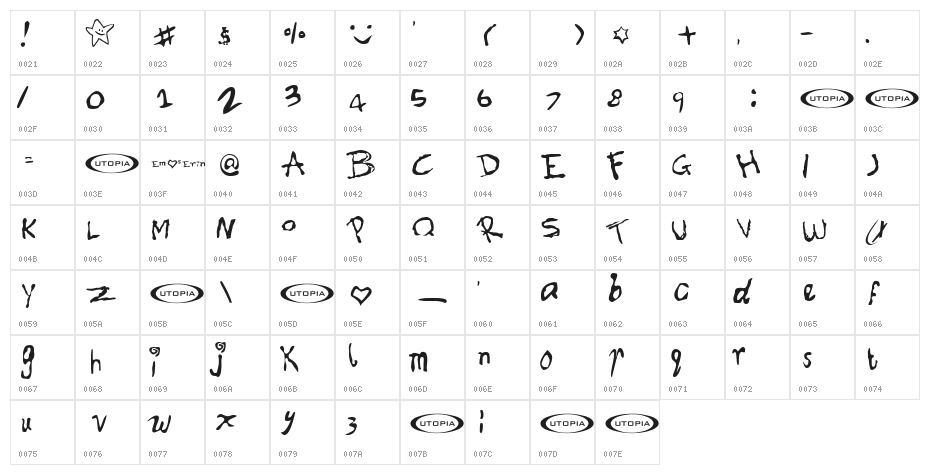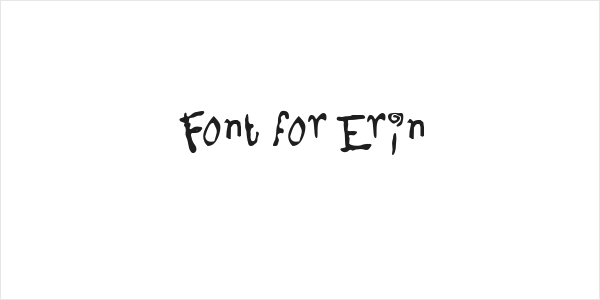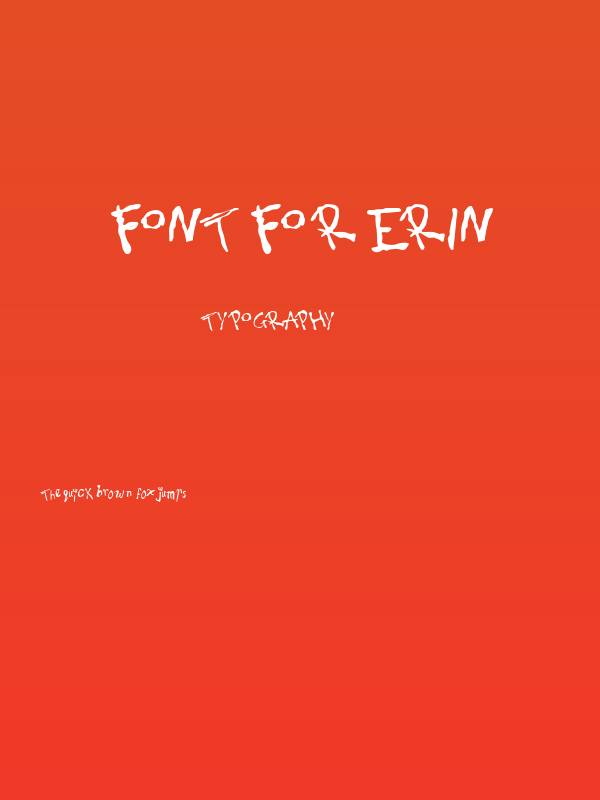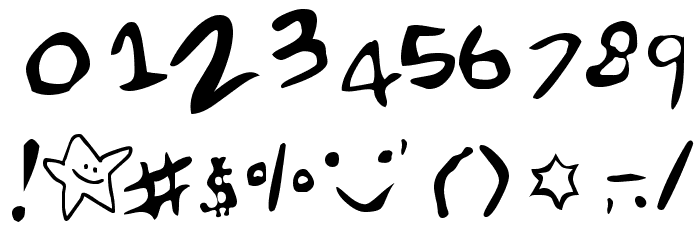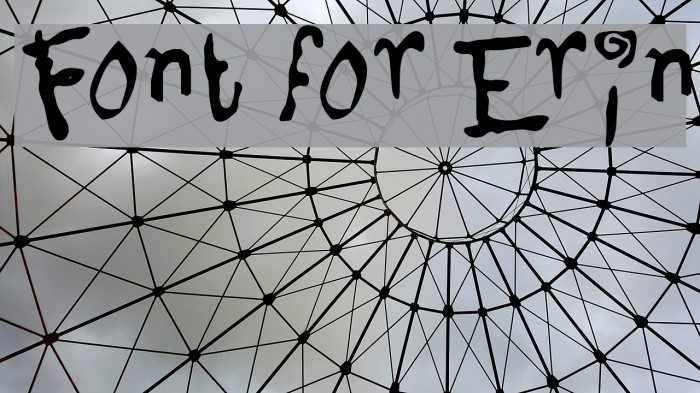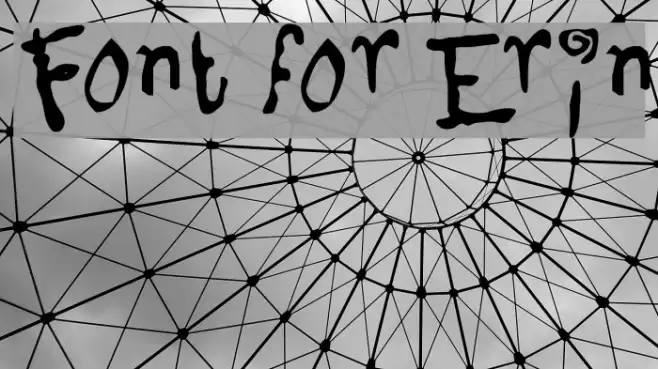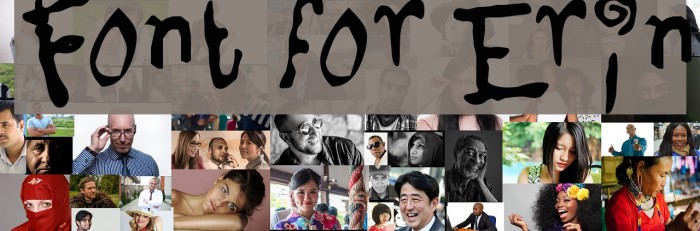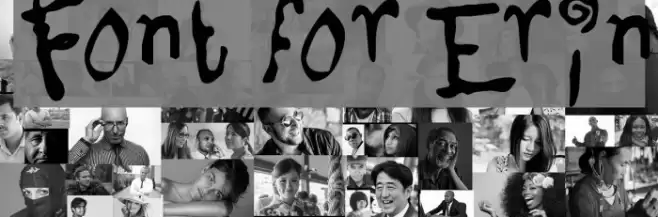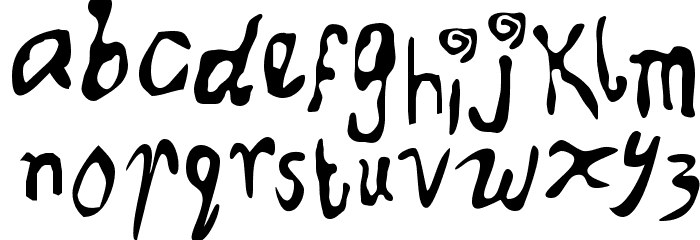
Font for Erin Font
Font for Erin Description
This font exhibits a playful and whimsical style, characterized by its irregular and organic letterforms that seem to dance across the page. The uppercase letters have a quirky, hand-drawn appearance with varying stroke widths, giving them a lively and dynamic feel. The lowercase letters continue this theme with unique, imaginative shapes that add to the font's charm. Numbers are bold and slightly exaggerated, maintaining the font's overall playful aesthetic. Special characters are creatively designed, adding a touch of fun and personality. This font is perfect for projects that require a lighthearted and artistic touch.
| Overall Style | Whimsical |
| Proposed Projects | Ideal for children's books, creative posters, playful branding, and artistic invitations. |